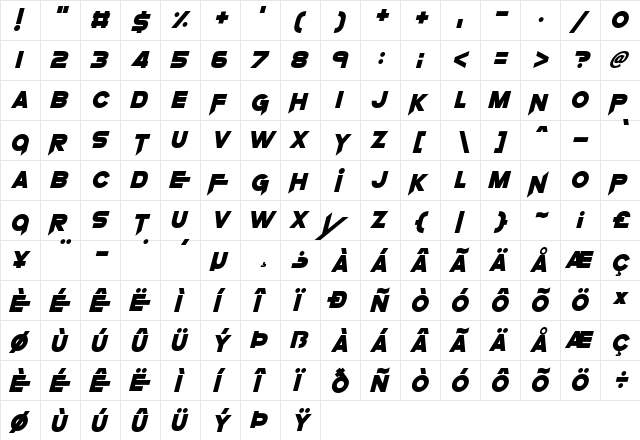
Knife Princess Regular
Design Context for Knife Princess Typeface
Knife Princess is a composed and adaptable typeface that performs quietly and consistently across a wide range of design contexts.